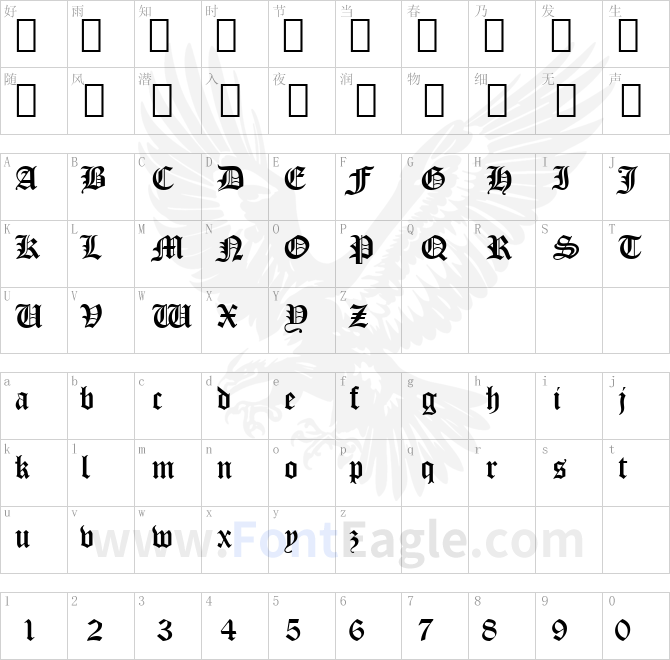
- Font name:CloisterBlack BT
- Font Subfamily ID:Cloister Black, Blackletter 751
- Font Full Name:CloisterBlack BT
CloisterBlack-BT is a great font, widely used in graphic design, single-page menu design, poster design and other fields, and is deeply loved by designers.CloisterBlack-BT download.